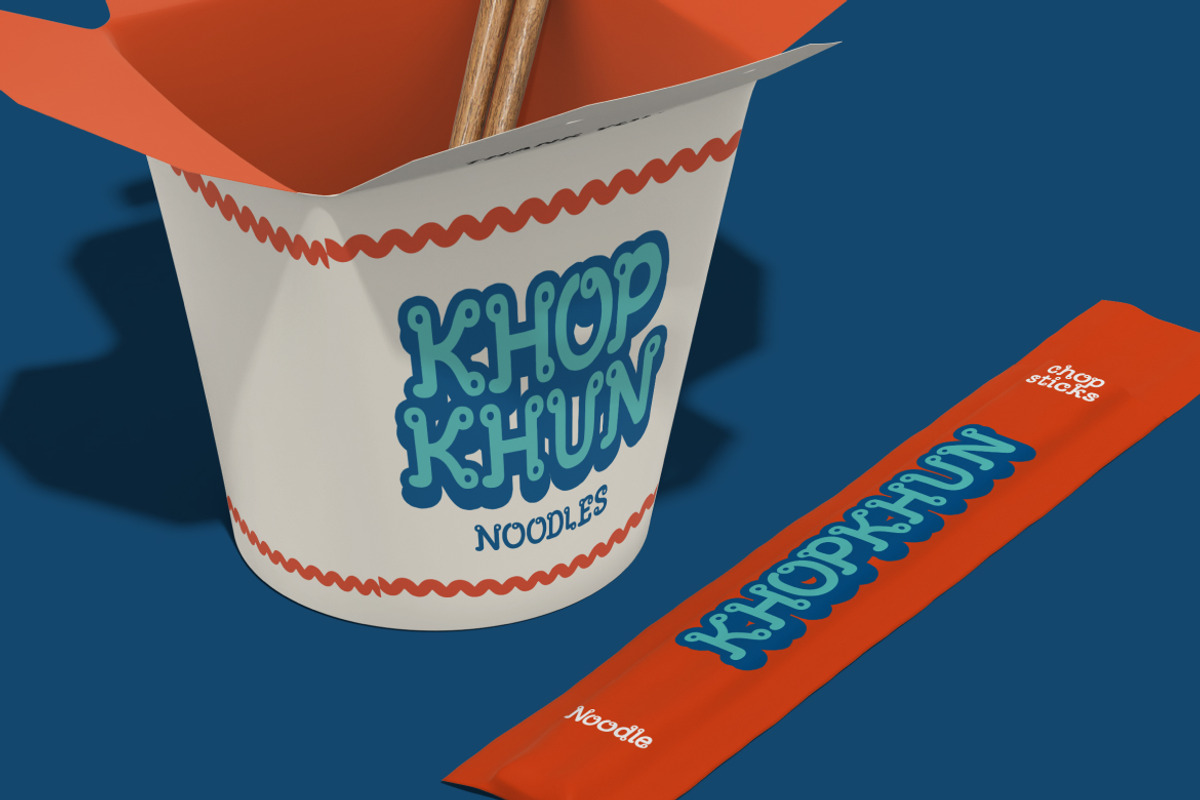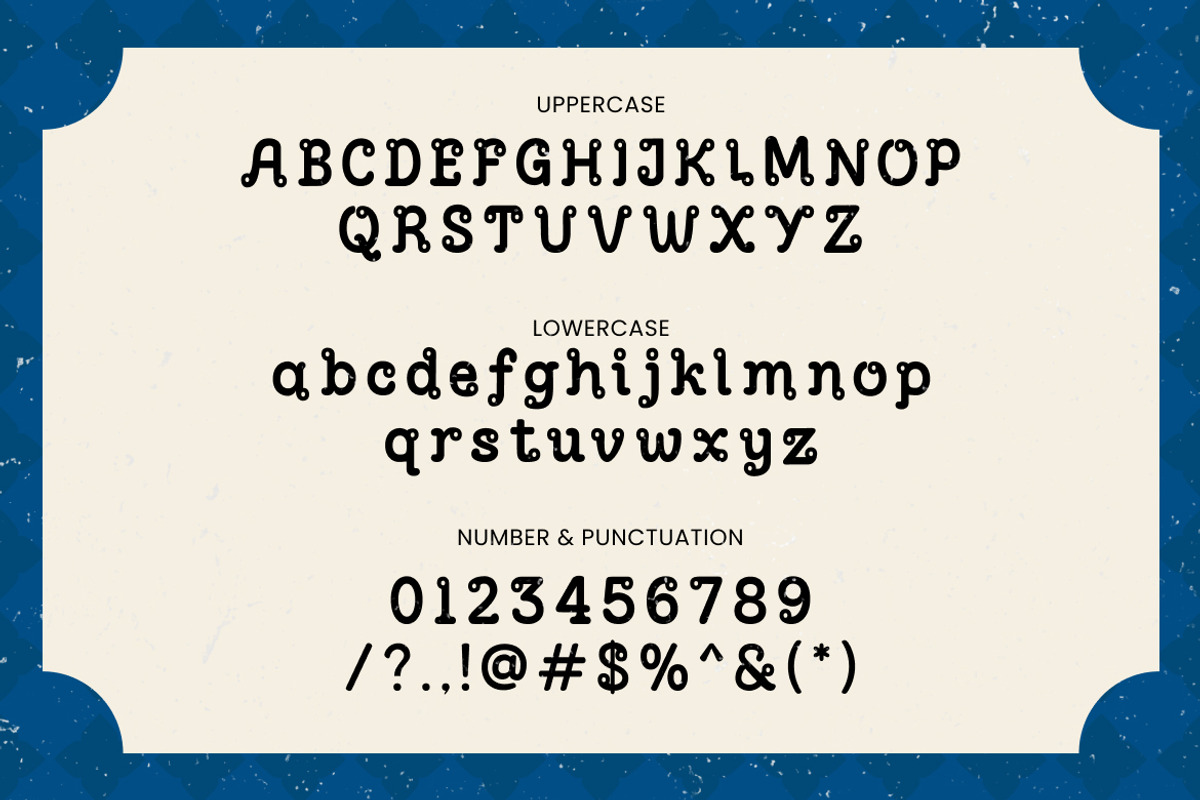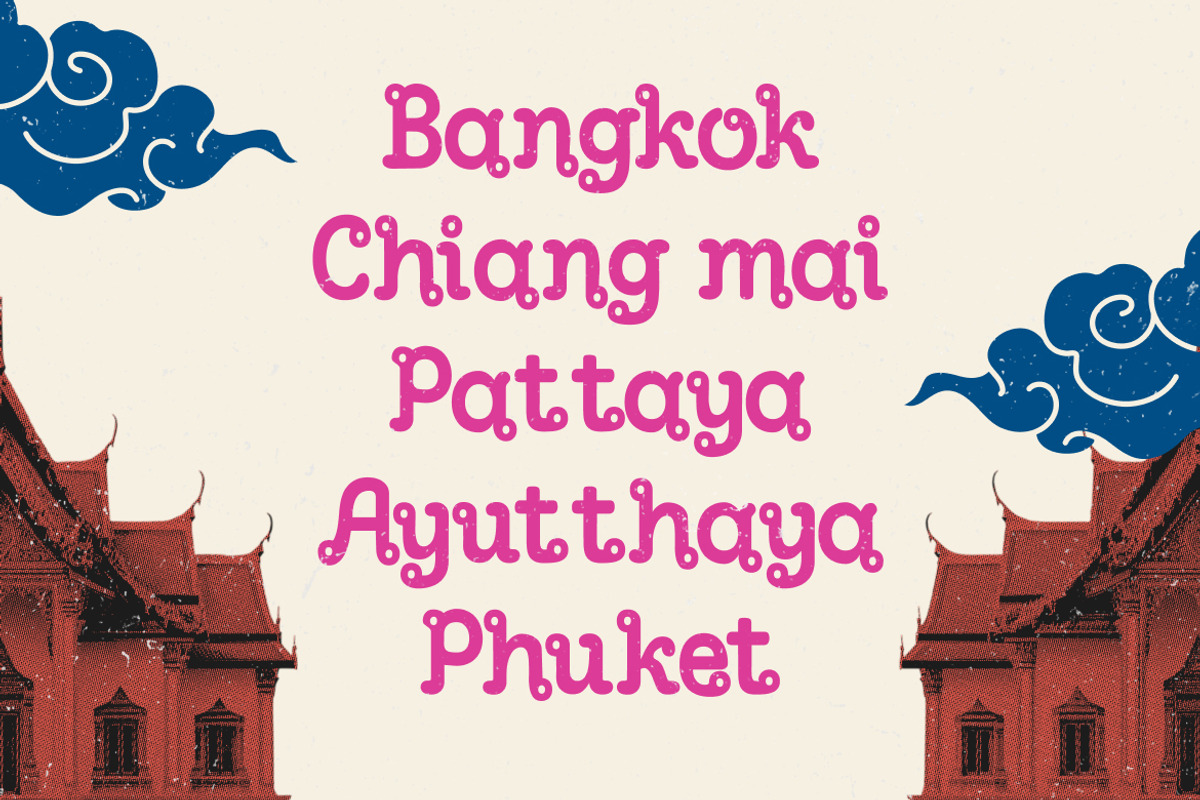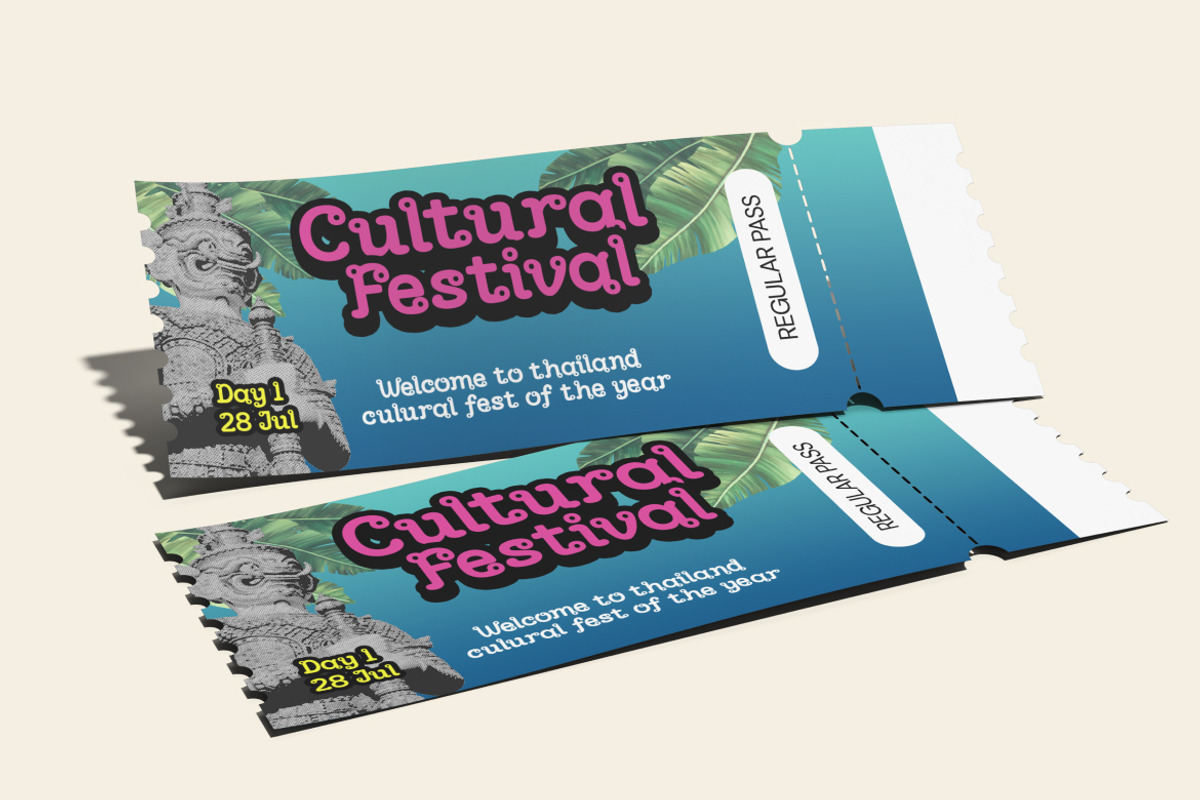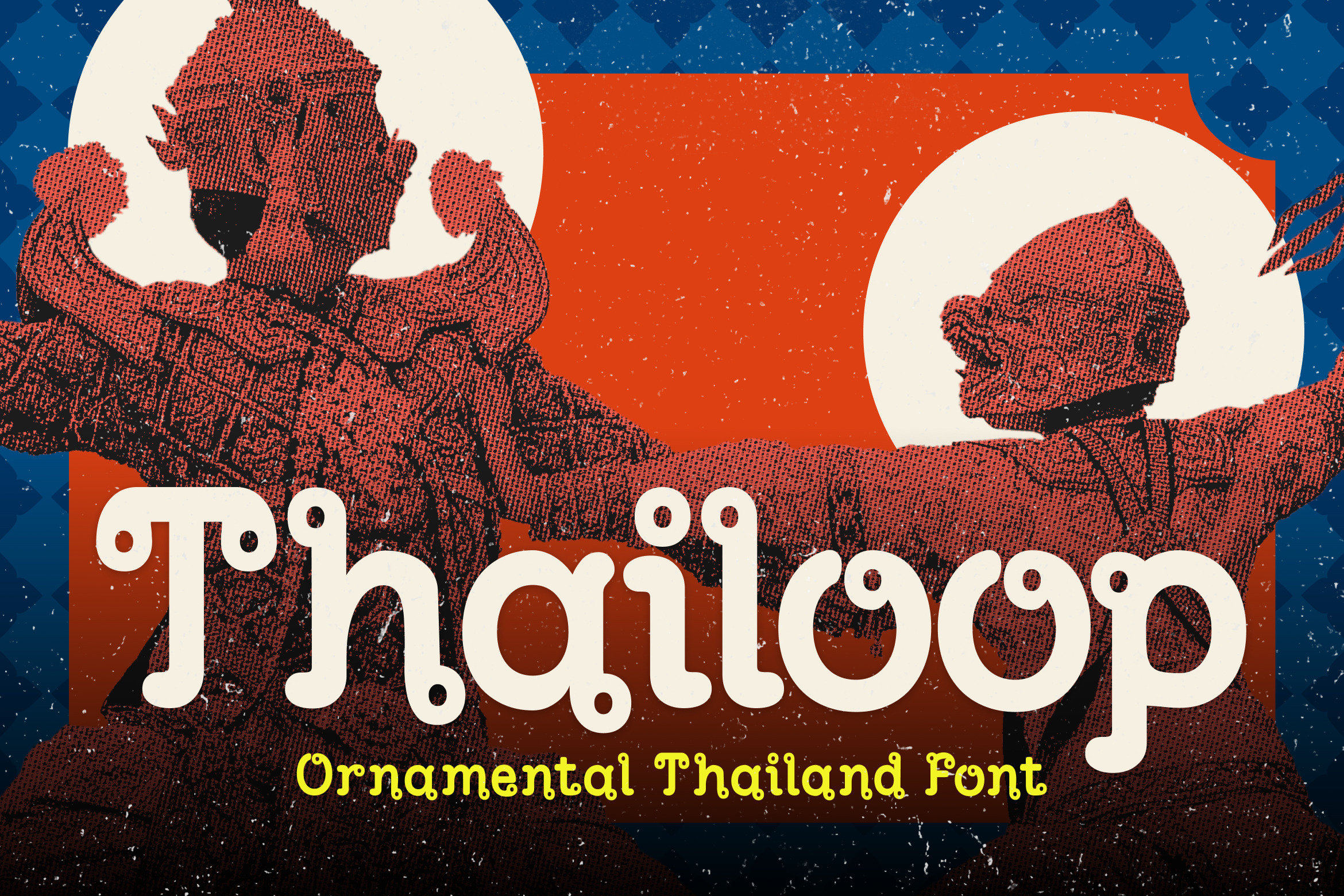
Thailoop Ornamental Thailand Font
Thailoop is a decorative display typeface inspired by traditional Thai visual culture and looping letterforms. Featuring playful curves, rounded terminals, and unique loop ornaments, this font brings cultural character and vintage charm to your work. It includes uppercase, lowercase, numerals, and punctuation, making it ideal for eye-catching headlines and expressive branding. Best used in larger sizes, Thailoop captures attention while delivering strong personality in every letter.
Thailoop is an ideal choice for creative projects that aim to evoke a strong cultural identity, particularly those influenced by Southeast Asian, Thai, or heritage-driven aesthetics. With its ornamental loops and bold, playful strokes, this typeface instantly communicates tradition, celebration, and artistic flair. It’s especially suitable for event branding such as cultural festivals, music and dance performances, tourism campaigns, temple fair posters.
- Bold display style with cultural Thai-inspired loops and flourishes
- Playful geometric shapes with ornamental dot details on key characters
- High contrast between stroke widths for dynamic visual rhythm
- Rounded edges and soft terminals for a friendly, handcrafted feel
- Distinct letterforms that stand out in headers, posters, and branding
- Cultural or tourism branding that celebrates Southeast Asian heritage
- Restaurant logos, menus, and packaging for Thai or Asian cuisine
- Event posters, festival flyers, and creative merchandise design
- Decorative headlines for editorial spreads or book covers
- Retro-style graphic projects needing bold, ornamental flair
Celebrate culture with every curve Thailoop bring bold Thai charm into your next creative project